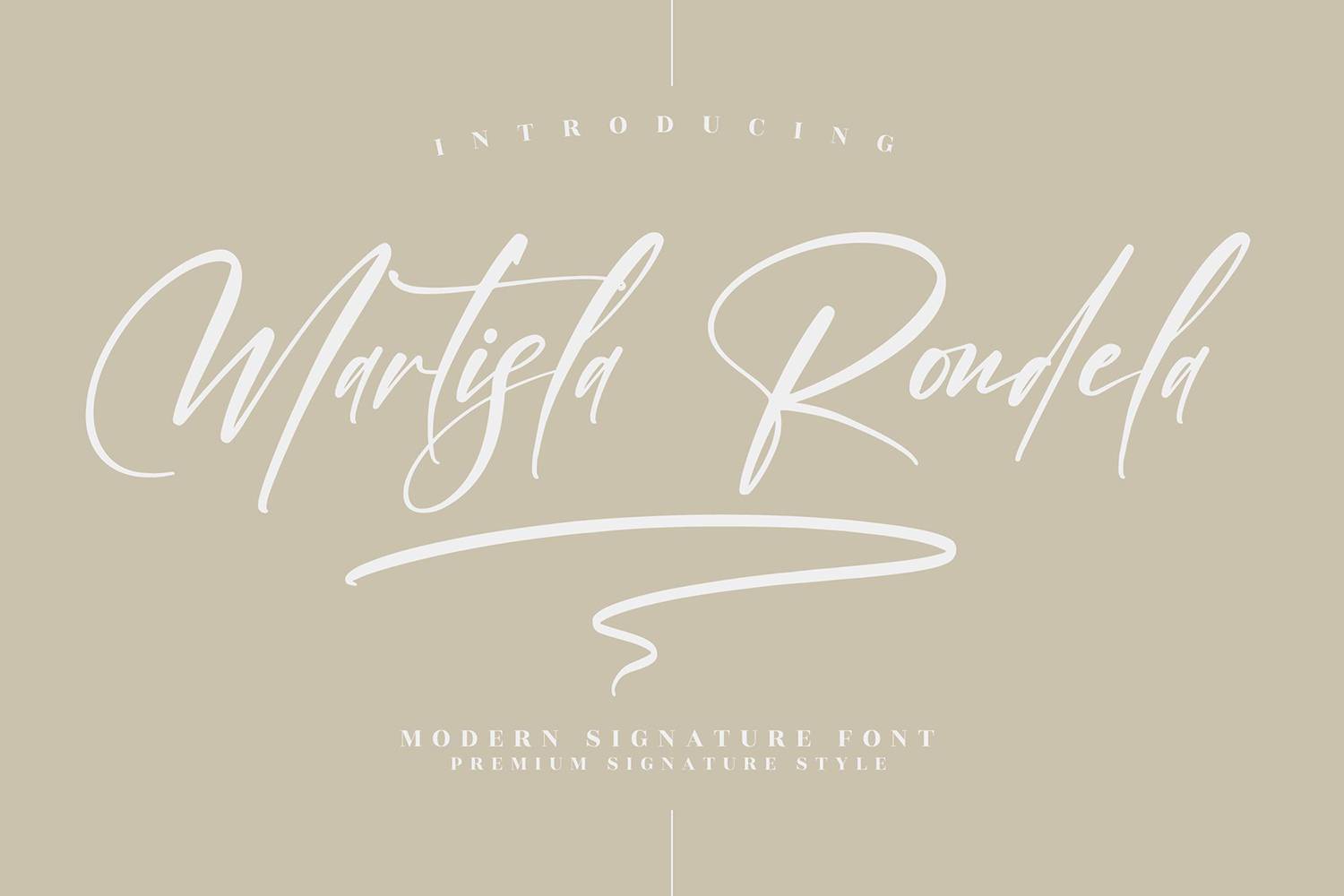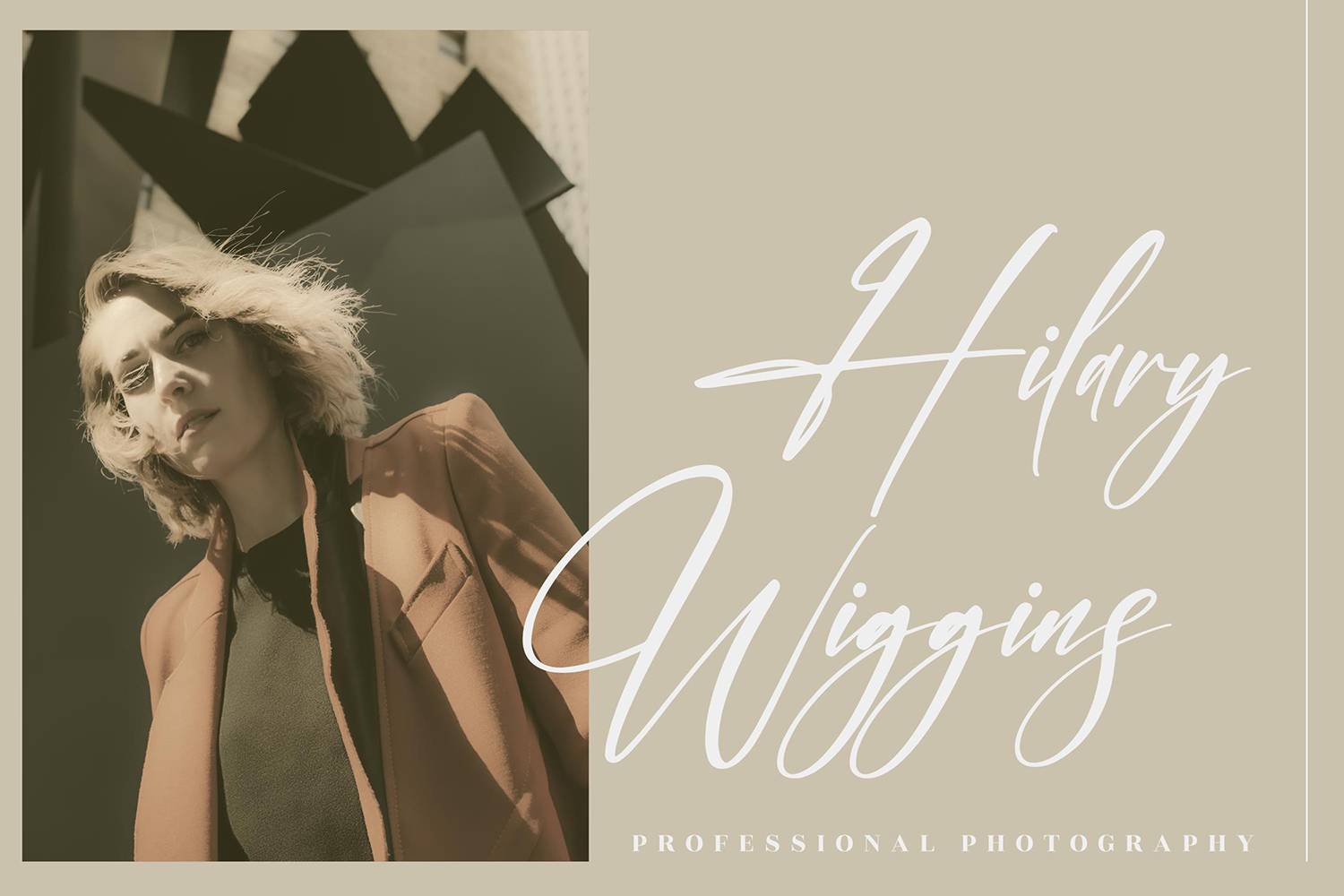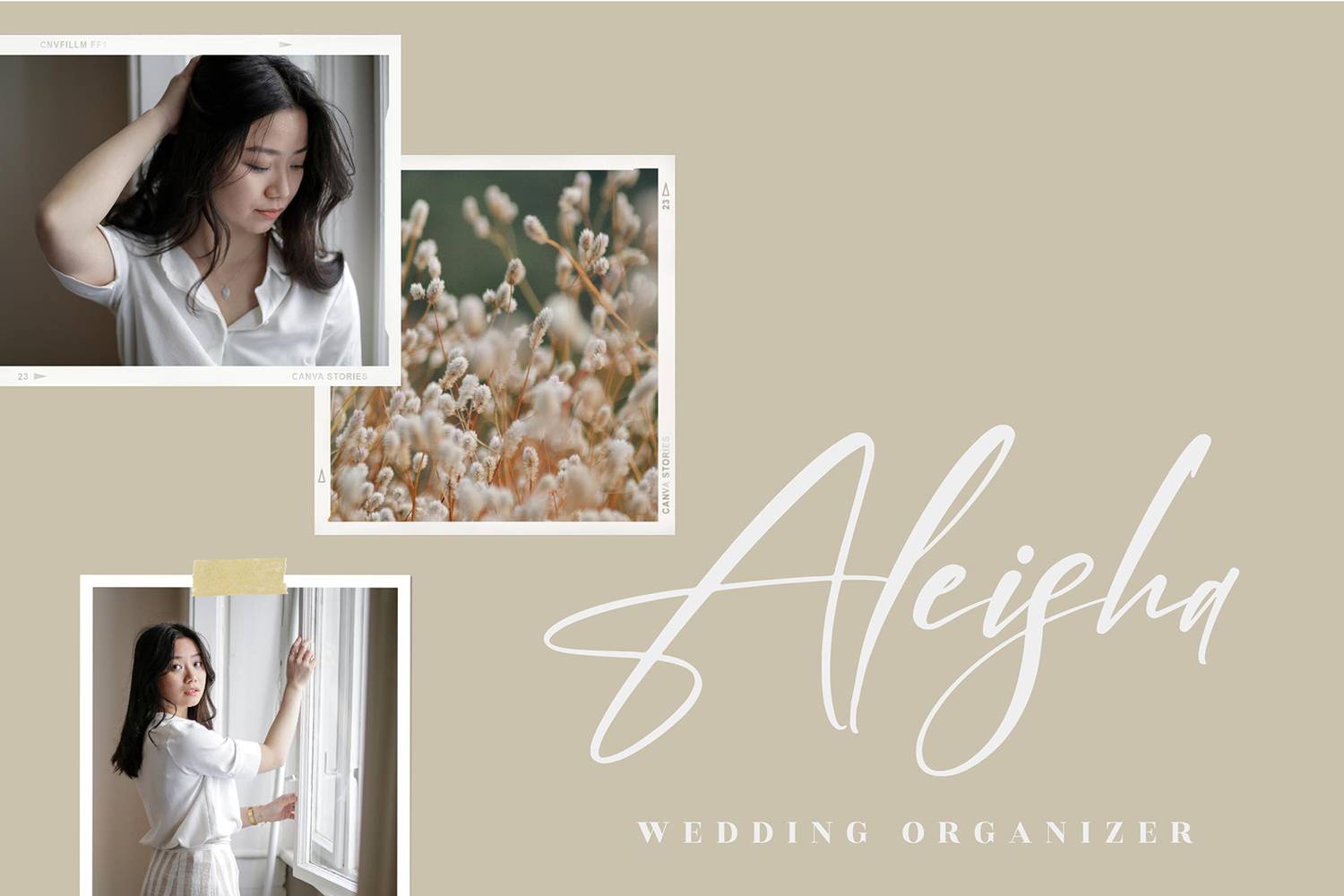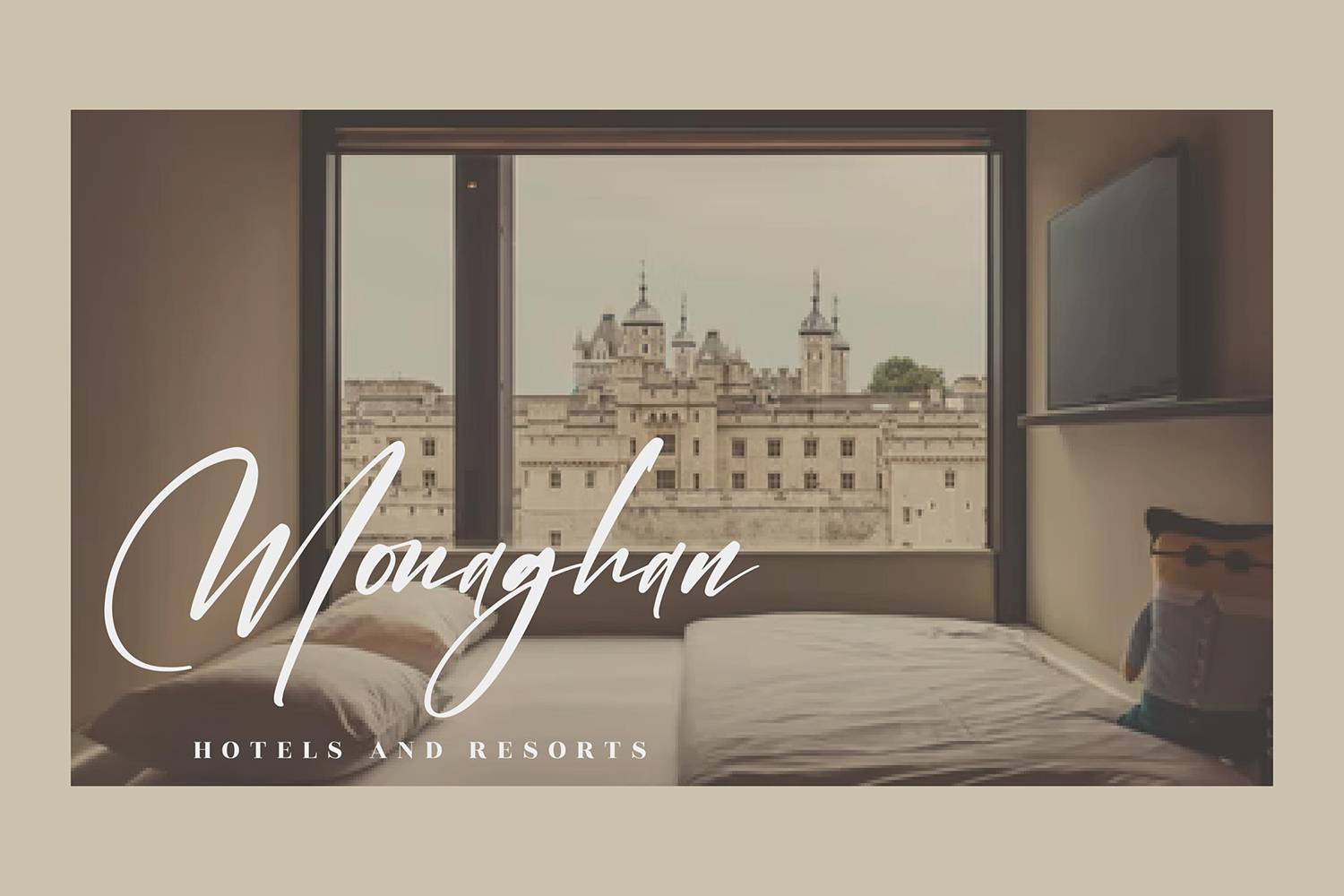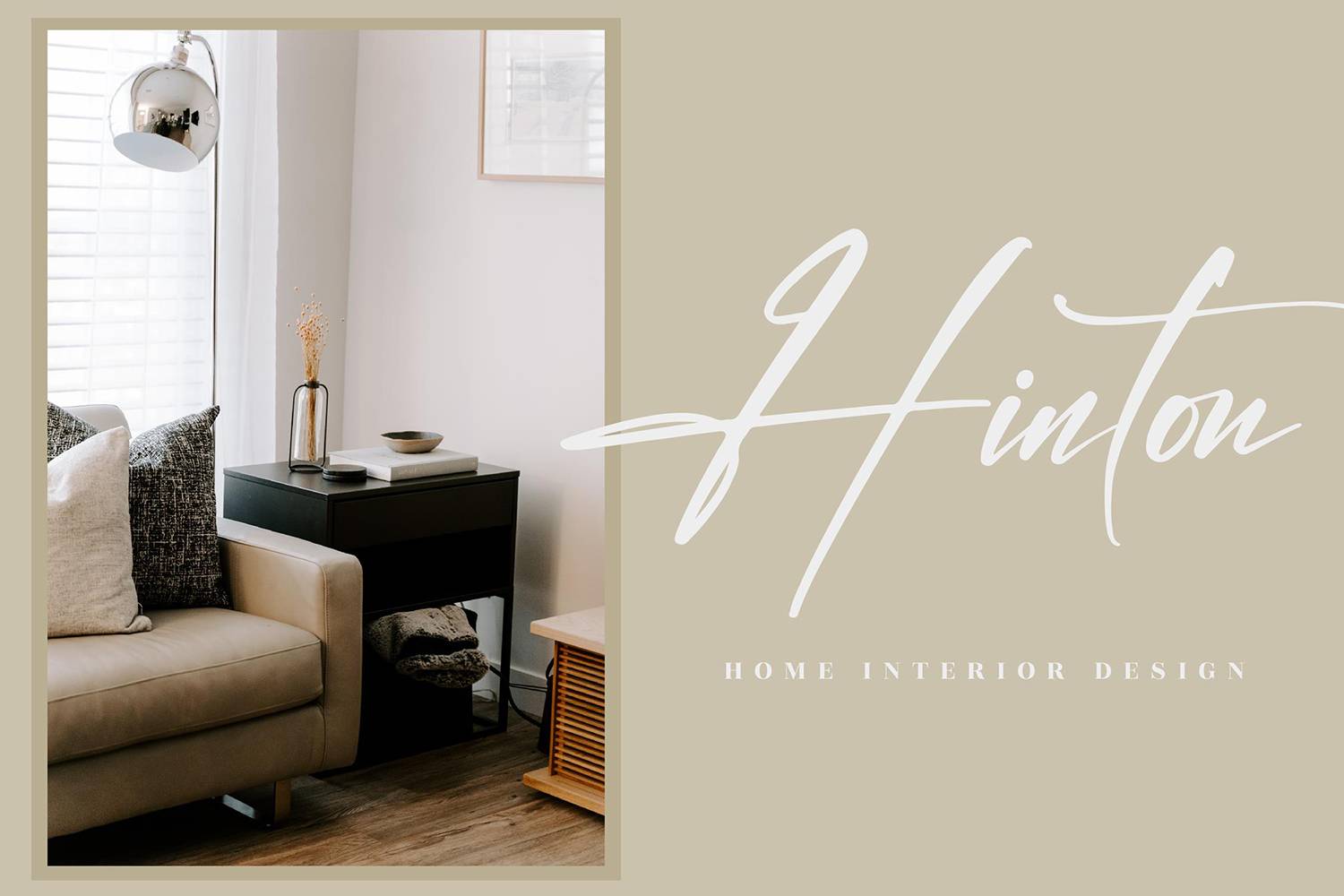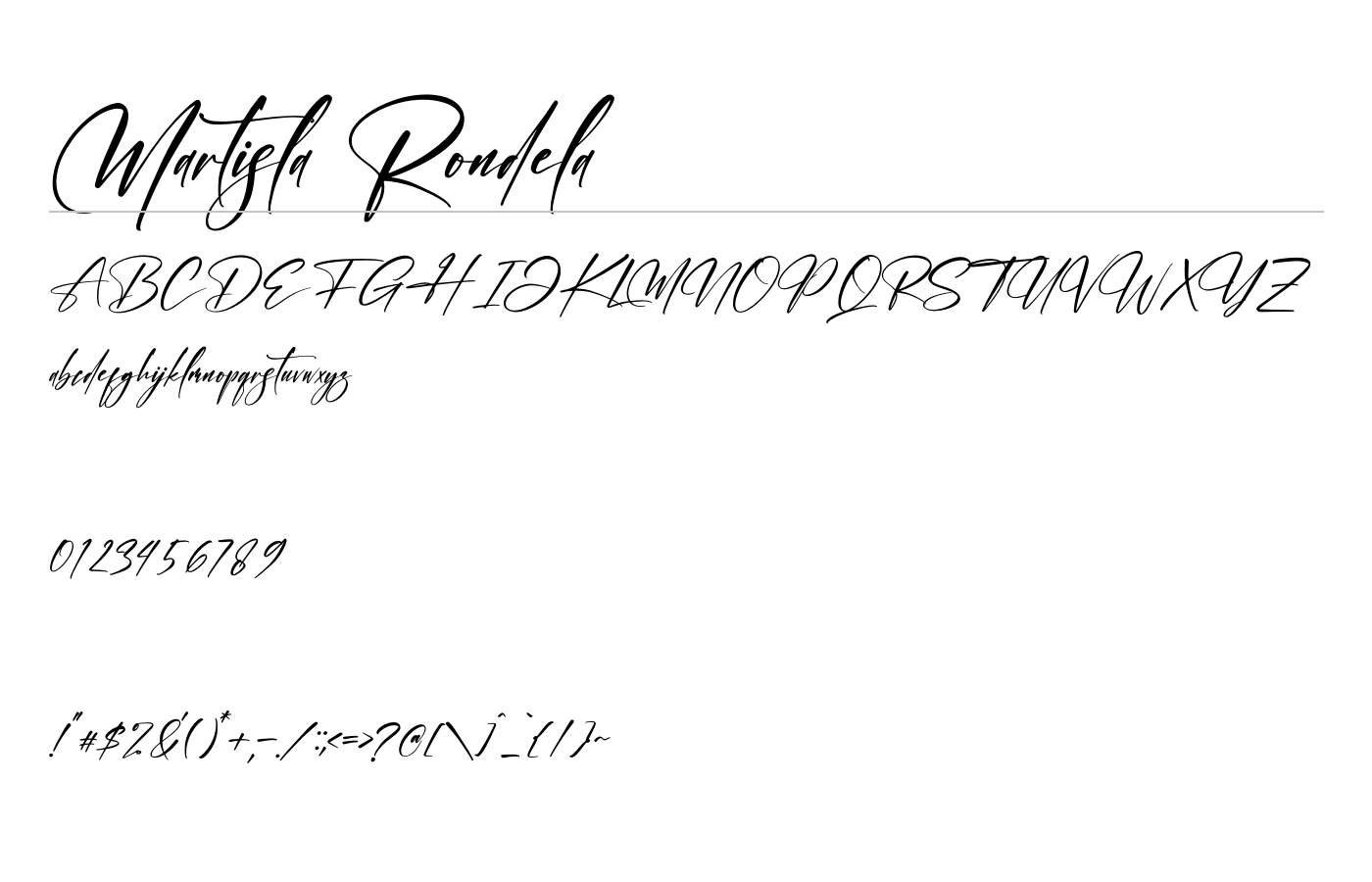
Martisla Rondela is a delicate and elegant script font characterized by slender, flowing strokes and a handwritten, calligraphic feel. Its high-contrast lines and graceful curves make it perfect for sophisticated branding, wedding invites, and stylish editorial designs where a touch of refinement and personality is desired. This font excels in settings that require a personal, artistic flair rather than heavy readability at small sizes.
Martisla Rondela Font
About Martisla Rondela Font